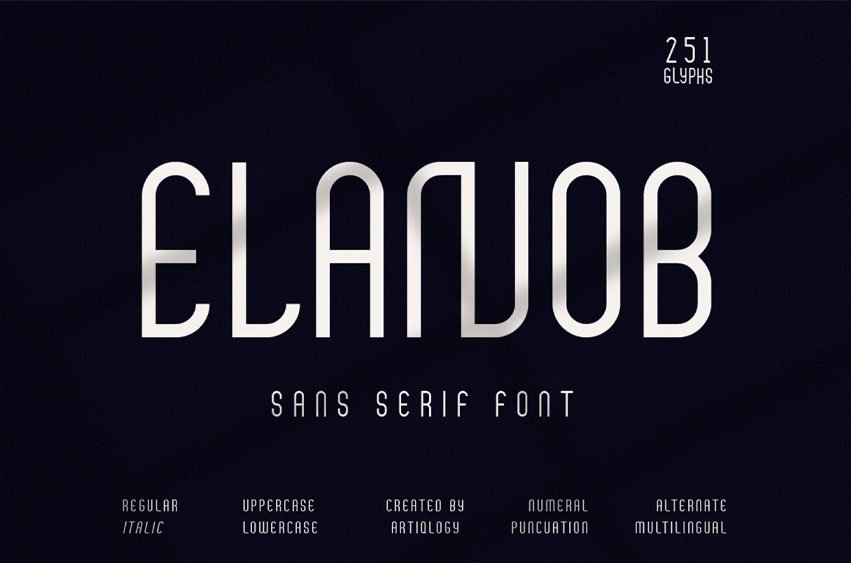
Elanob Font is a modern and cool sans serif font. It has a neat and unique style that can enhance the appearance of various designs, from magazine titles to branding, and more!